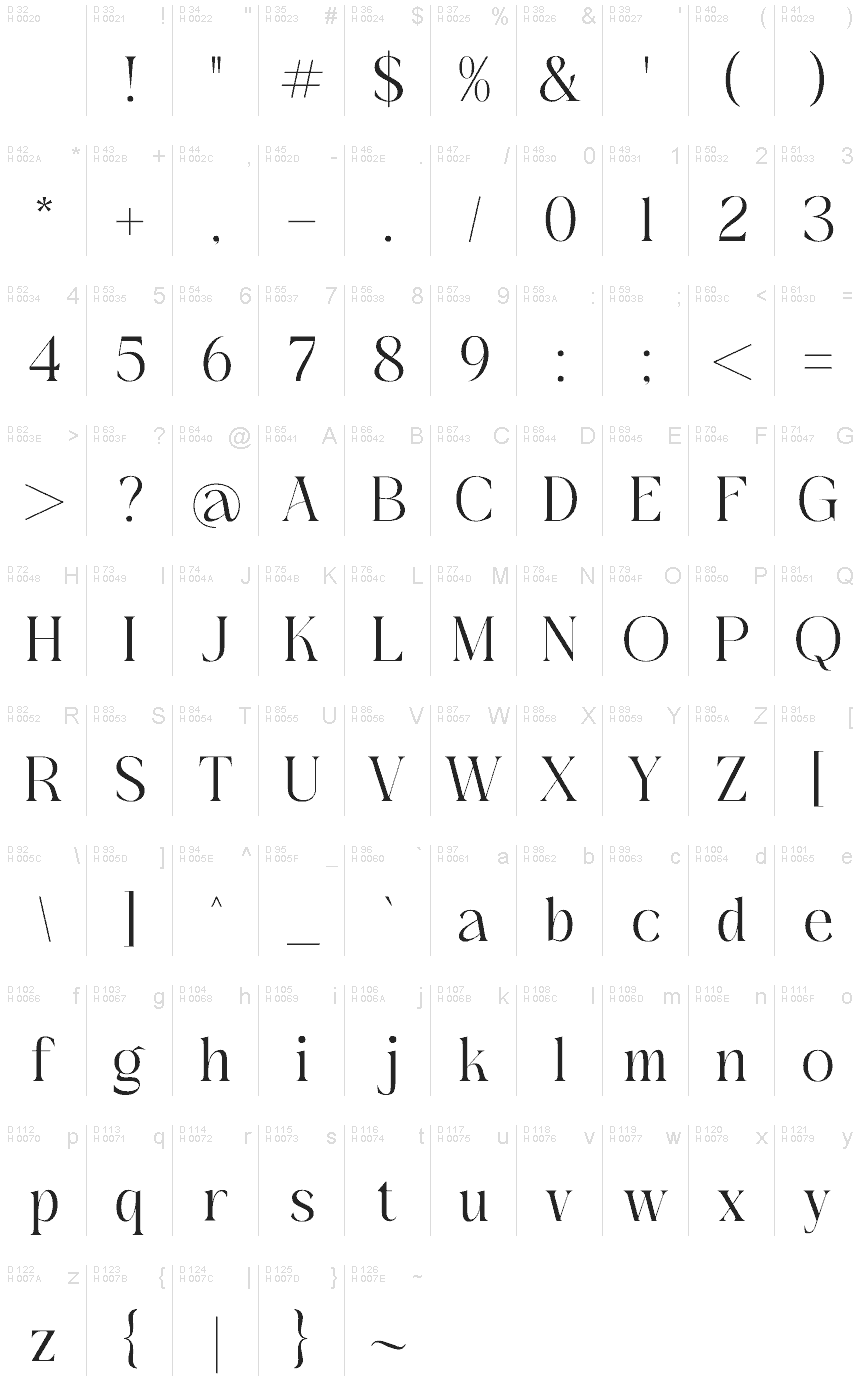
Blanvad
Blanvad font is a timeless serif font elegantly crafted by Storytype Studio. Its classic design boasts flowing movement and subtle serif influences, creating a sophisticated and refined appearance. Blanvad artistically combines elegant shapes with graceful curves resulting in a luxurious overall feel that attracts instant attention. In addition to its visuals, the typeface stands out due to its harmonious structure and perfect symmetry – characteristics that often form the grounds of professional-grade fonts.
Use this free serif font across your logos, website headers, posters, magazine covers, books pages, business cards, packaging designs as well as branding material for high-end corporations or even entire industries. Movie production companies will benefit from integrating Blanvad seamlessly into costumes’ clothing labels or any other visual asset found on set including graphics printed on props such as newspapers read by actors while shooting scenes taking place in earlier times throughout history!